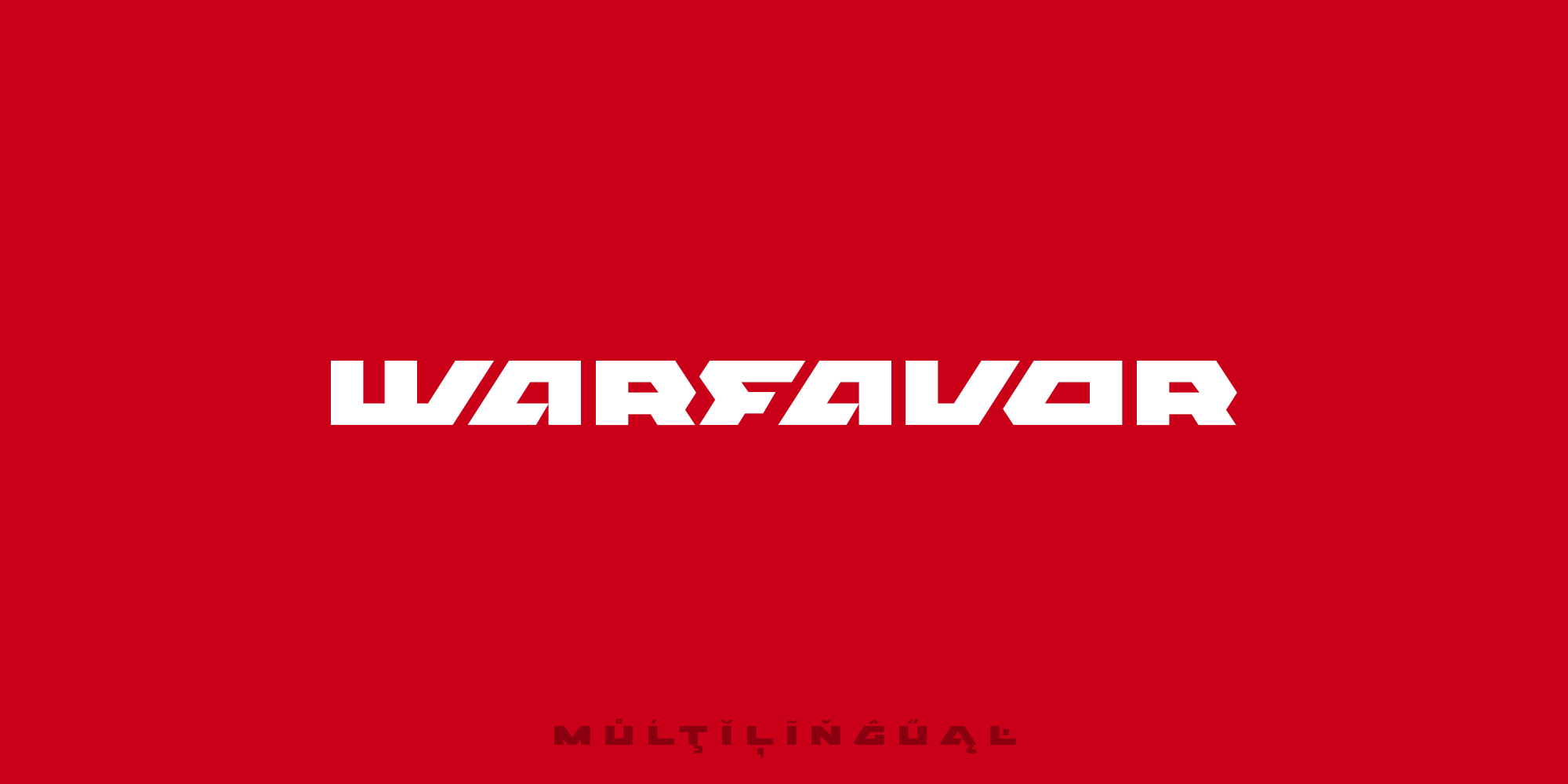
Warfavor
Designed by Oleksandra Vashulenko, Warfavor is a display sans font family published by Sentavio.
Warfavor font is designed to create strong bold stylish headlines. Some letters have theirs variations of different inclines, which allows to organically connect the letters with each other.